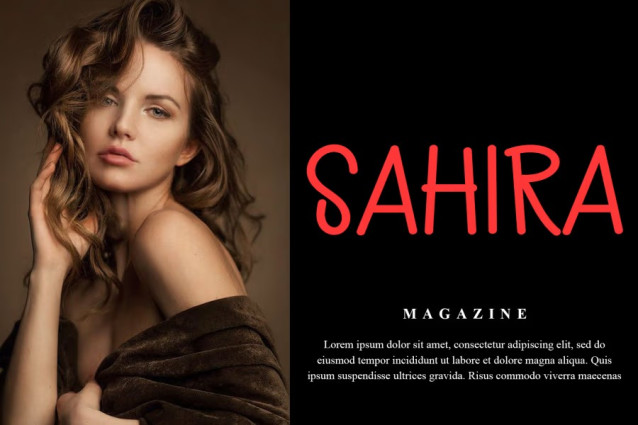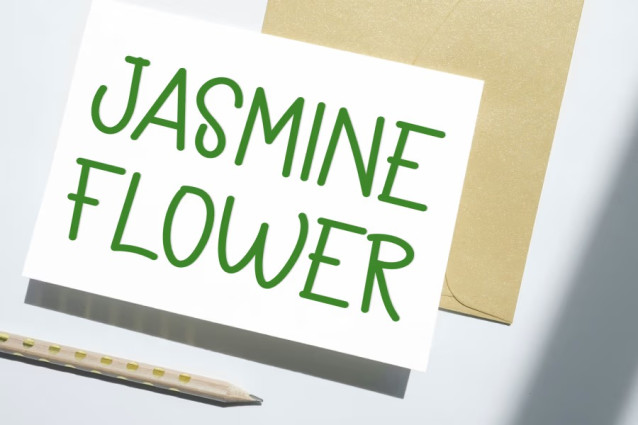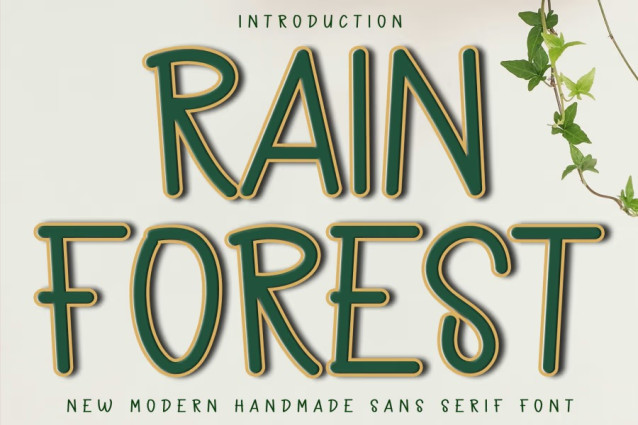
Rain Forest Font
Rain Forest Font is a charming, organic, and playful sans serif display font inspired by nature and hand-drawn aesthetics. It features tall, slightly rounded letterforms with a clean outline and a gentle, bouncy baseline, giving it a friendly and whimsical character.
This typeface is perfect for eco-friendly branding, children’s educational materials, nature-themed posters, casual apparel, and any project that needs a natural, cheerful, and unique handmade touch.